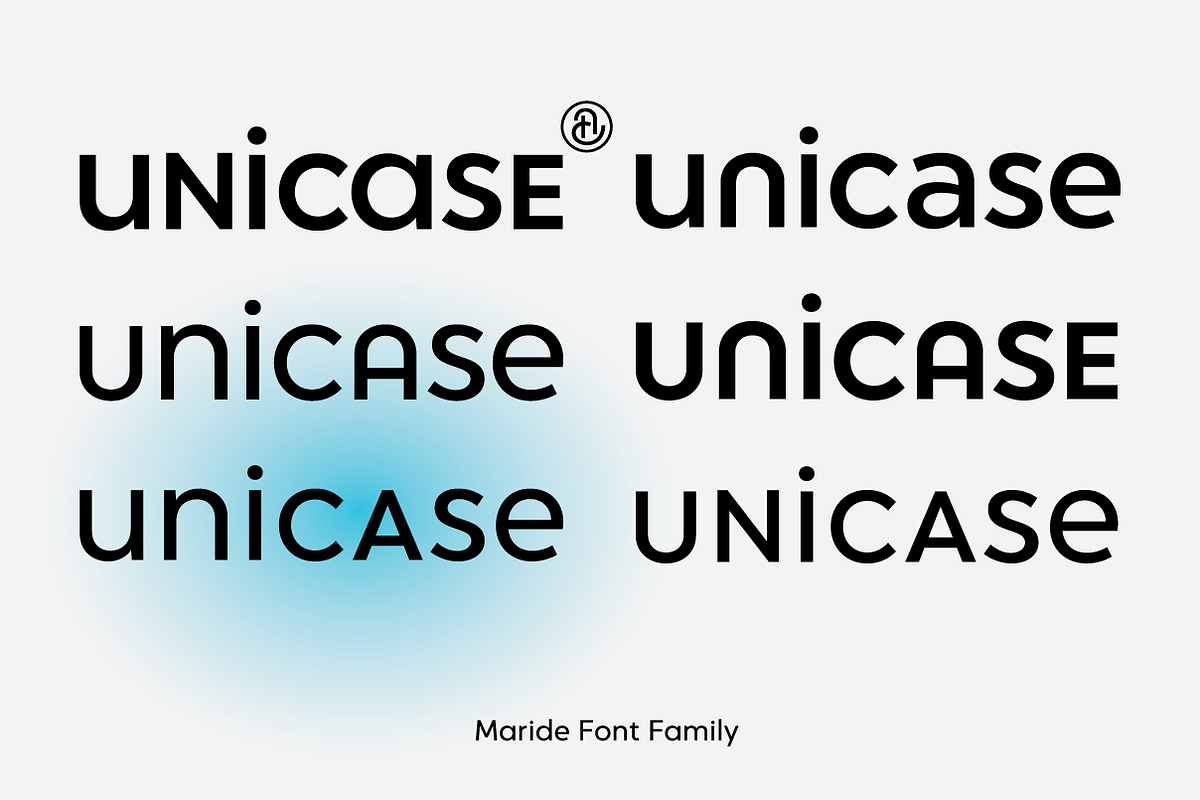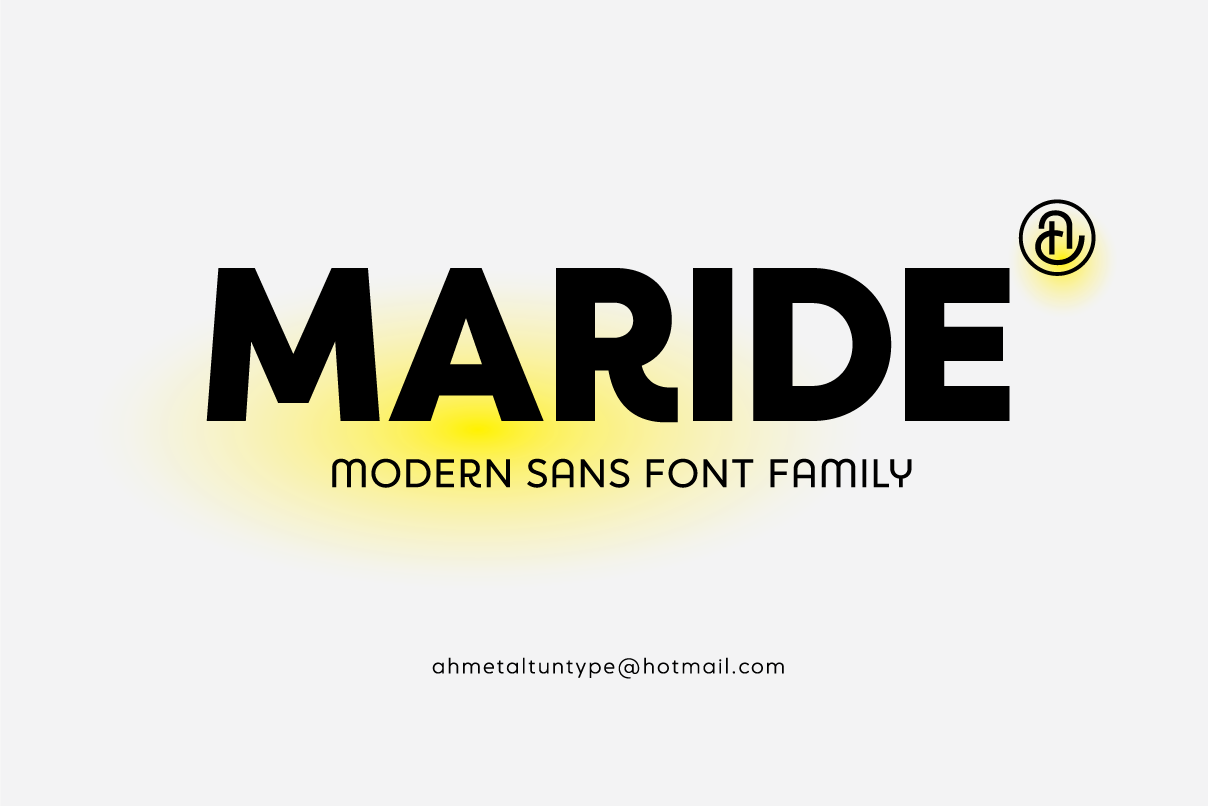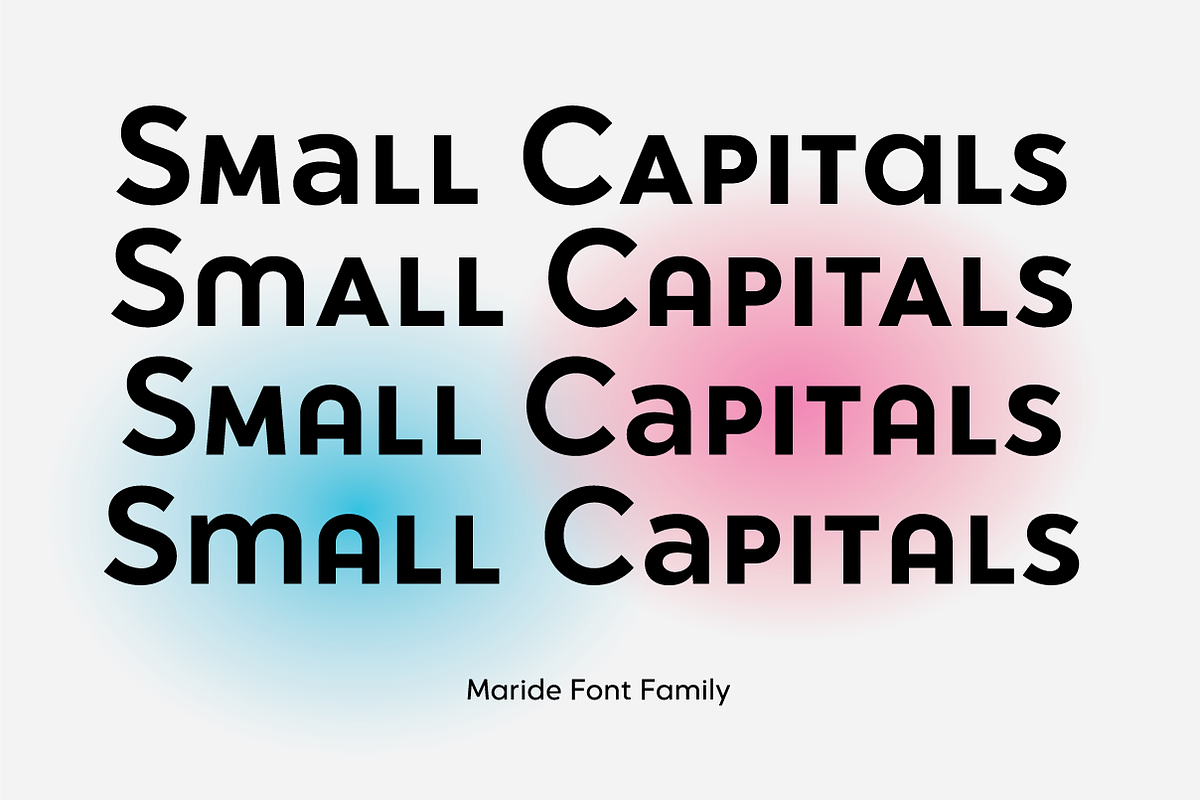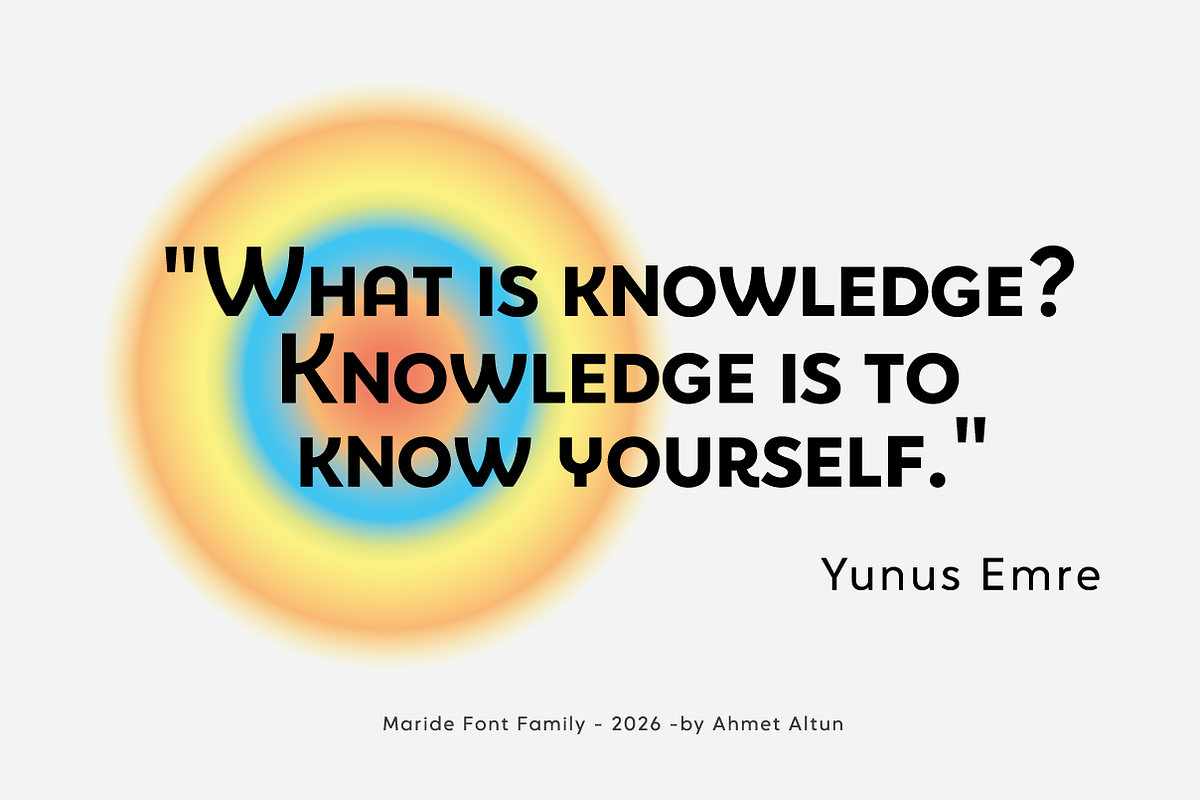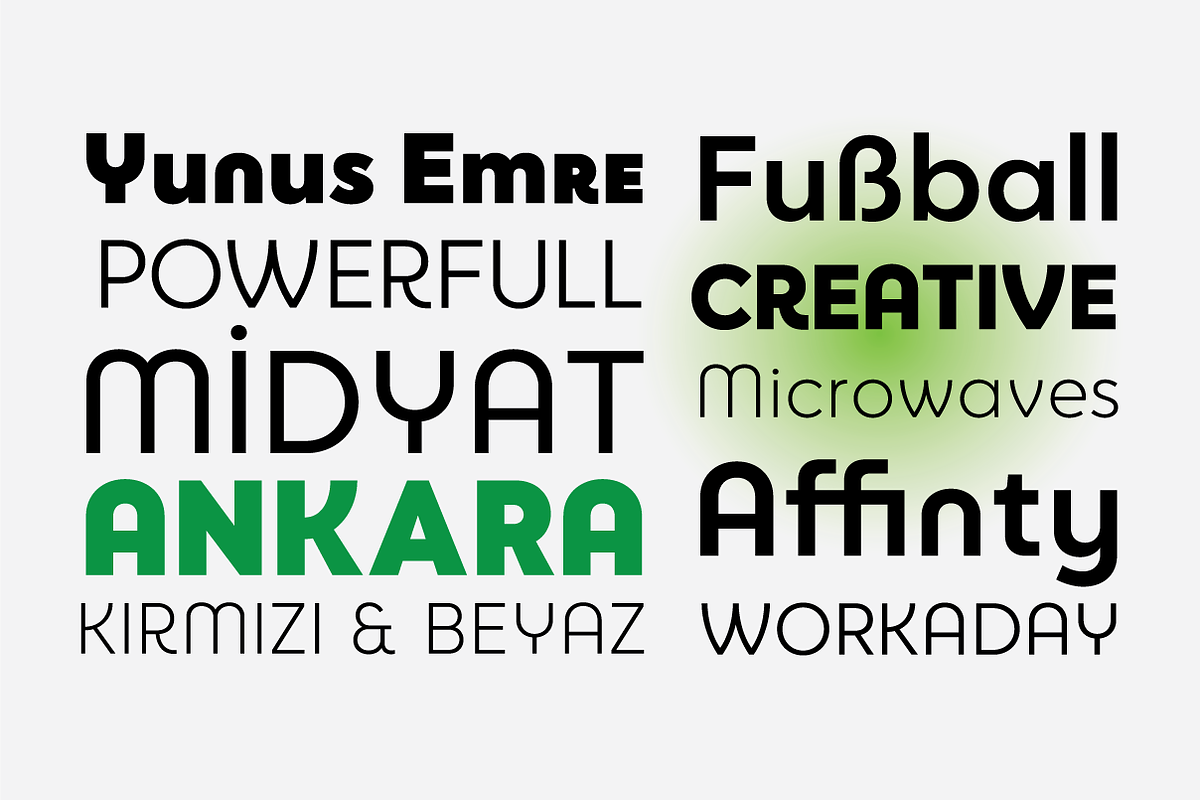
Maride Font Family
Maride is a modern, sans-serif, and geometric font family. With small caps at the height of lowercase letters, as well as stylistic alternatives for some uppercase and lowercase letters, it allows for the creation of a wide variety of text. The Maride font family consists of 10 weights and does not include italic styles. With its scientific and mathematical OpenType features, it can be an excellent font choice for all kinds of graphic design projects.